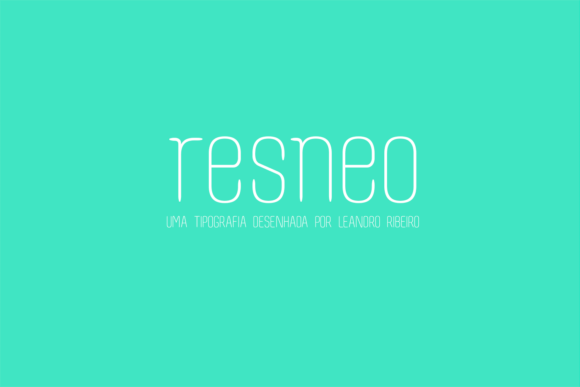
Unleash the power of crisp, elegant typography with Resneo Font, a captivating display font that exudes sophistication and clarity. Designed by the ingenious minds at lerima, Resneo's slender letterforms dance across the screen, leaving a trail of visual intrigue and readability.
Immerse yourself in a world of design possibilities with Resneo, a versatile font family that adapts seamlessly to a myriad of creative endeavors. From the delicate pages of book texts to the formal structure of documentation, Resneo weaves its magic, transforming words into works of art. Its clean lines and balanced proportions make it an ideal choice for business reports and correspondence, lending a touch of professionalism and poise to your communication.
Step into the limelight with Resneo, the font that commands attention in the world of magazines and newspapers. Its crisp edges and razor-sharp details cut through the clutter, ensuring your headlines and articles leap off the page and capture the reader's gaze. Create posters and advertisements that resonate with your audience, leaving an indelible mark on their minds. Resneo's inherent versatility extends to the realm of multimedia and corporate design, adding a touch of elegance and distinction to your presentations, websites, and branding materials.
Experience the transformative power of Resneo, a font that elevates your designs to new heights of visual appeal. Its graceful curves and sweeping strokes bring a sense of dynamism and motion to your creations, captivating your audience and leaving them yearning for more. Embrace the beauty of simplicity with Resneo, a font that embodies the essence of minimalism, allowing your content to shine through with unparalleled clarity and impact.